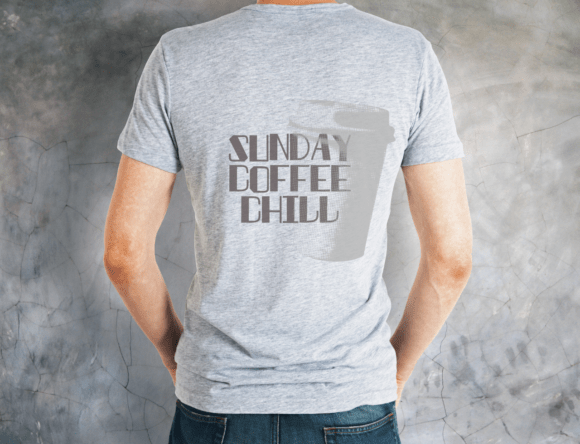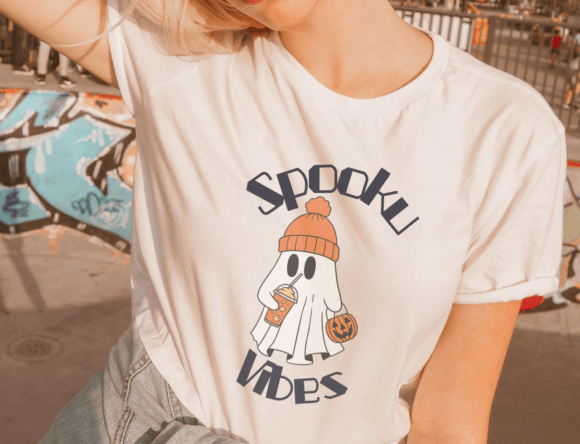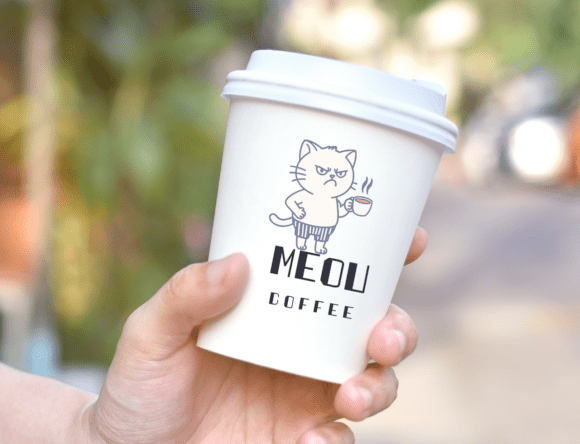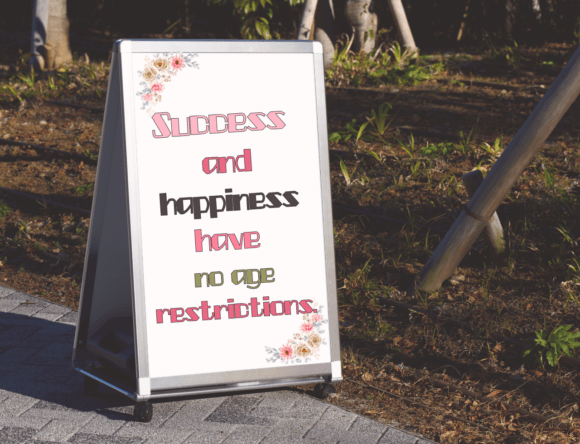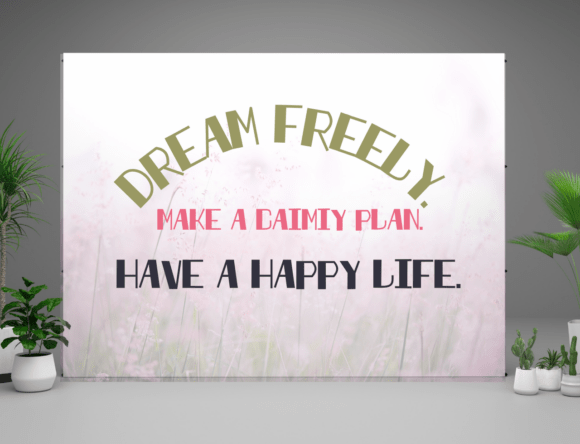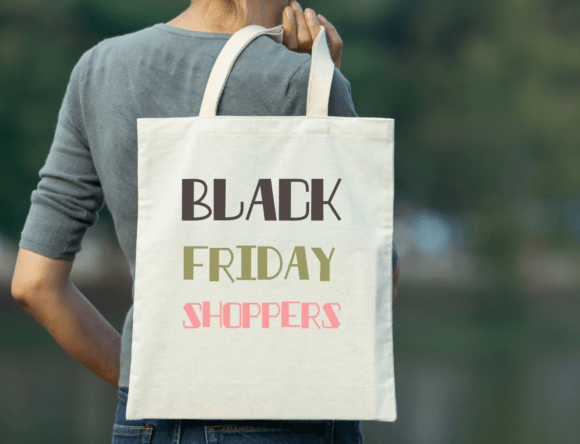
Introduction to Naynate Font Font
Fonts play a crucial role in design, and the Naynate Font font is a typeface that brings both character and versatility to any project. Whether you’re working on a branding project, a website, or a print design, the Naynate Font font offers a unique style that can elevate your work.
Introducing Naynate, the quintessentially unique font primed to infuse your designs with an unmatched persona.
Artistic in conception and versatile in application, Naynate is an unprecedented way to magnify the uniqueness of your creations Whether itβs adding a touch of distinction to a letter, designing extraordinary greeting cards, or crafting memorable wedding invitations, Naynate springs to life in your typographic ventures.
Key Features of Naynate Font Font
Why Choose Naynate Font Font?
The Naynate Font font is more than just a typeface β it’s a design tool that helps you communicate your message with style and clarity. Its unique character set and versatile design make it suitable for a wide range of applications, from elegant invitations to bold headlines.
With its carefully crafted letterforms and balanced proportions, the Naynate Font font ensures readability and visual appeal across all mediums.
What makes Naynate Font font special?
The Naynate Font font stands out with its unique design, exceptional readability, and versatility across various design applications.